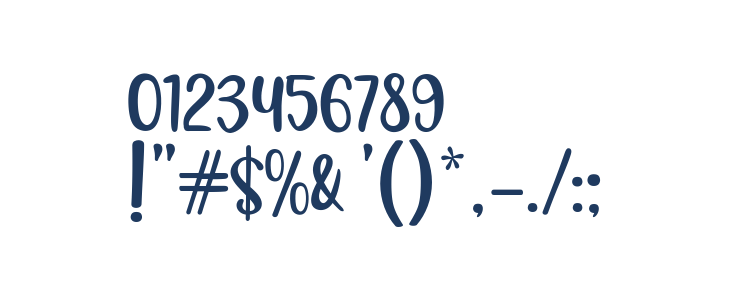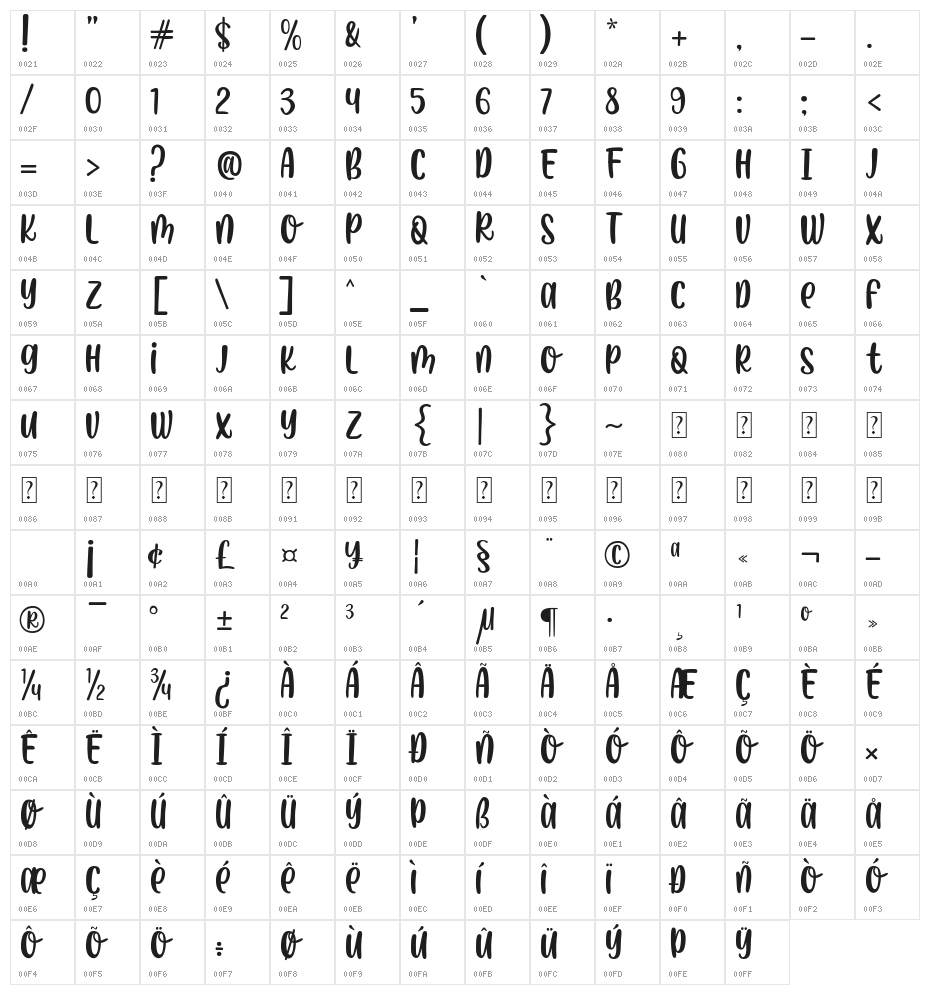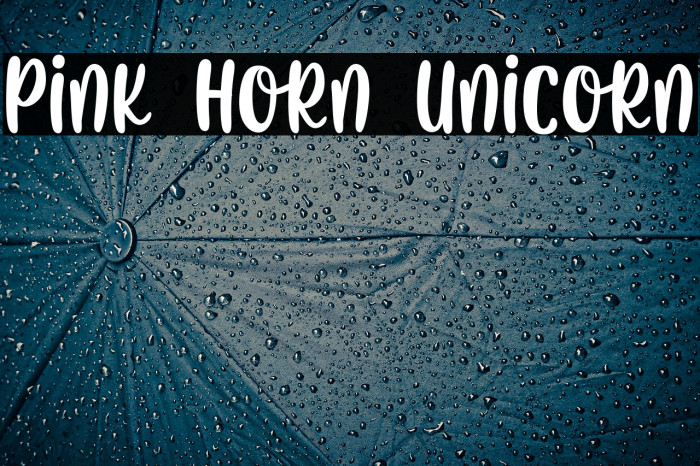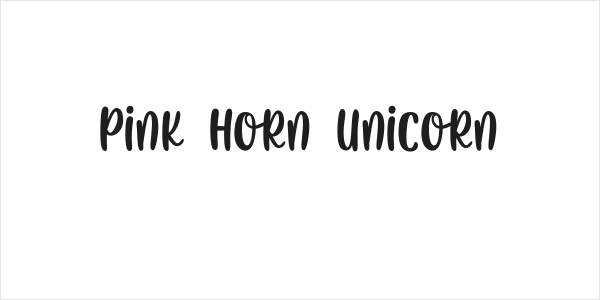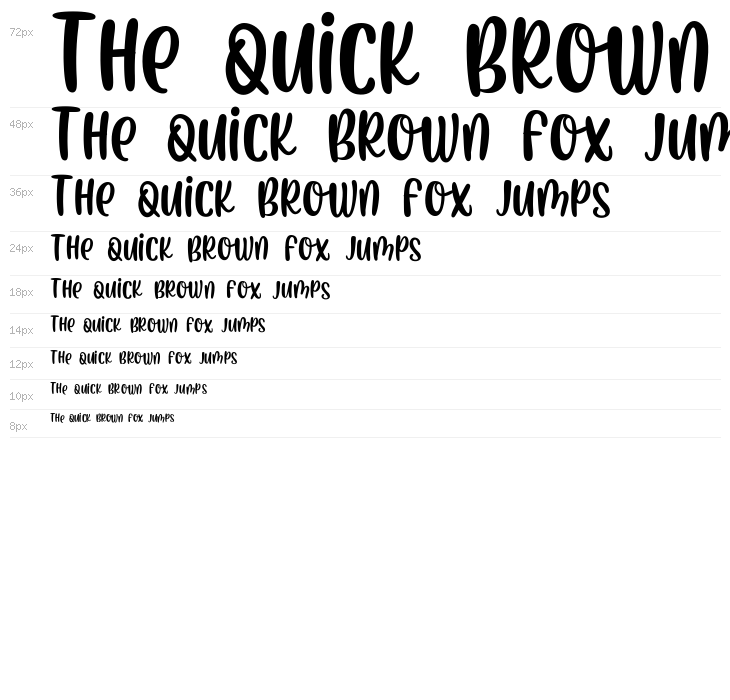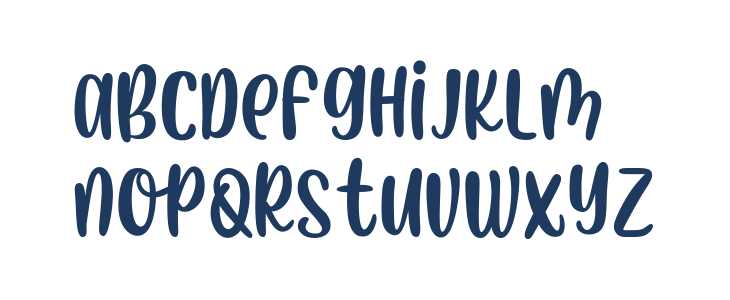
Pink Horn Unicorn Font
Pink Horn Unicorn Description
This playful and whimsical font features bold, rounded characters with a hand-drawn feel. The letters are slightly irregular, adding a sense of charm and personality. The uppercase and lowercase letters maintain a consistent style, with smooth curves and a friendly appearance. The numbers and special characters complement the alphabet with the same playful aesthetic. This font is perfect for projects that require a fun and approachable look, such as children's books, party invitations, or playful branding.
| Proposed Projects | Ideal for children's books, party invitations, playful branding, and creative posters. |